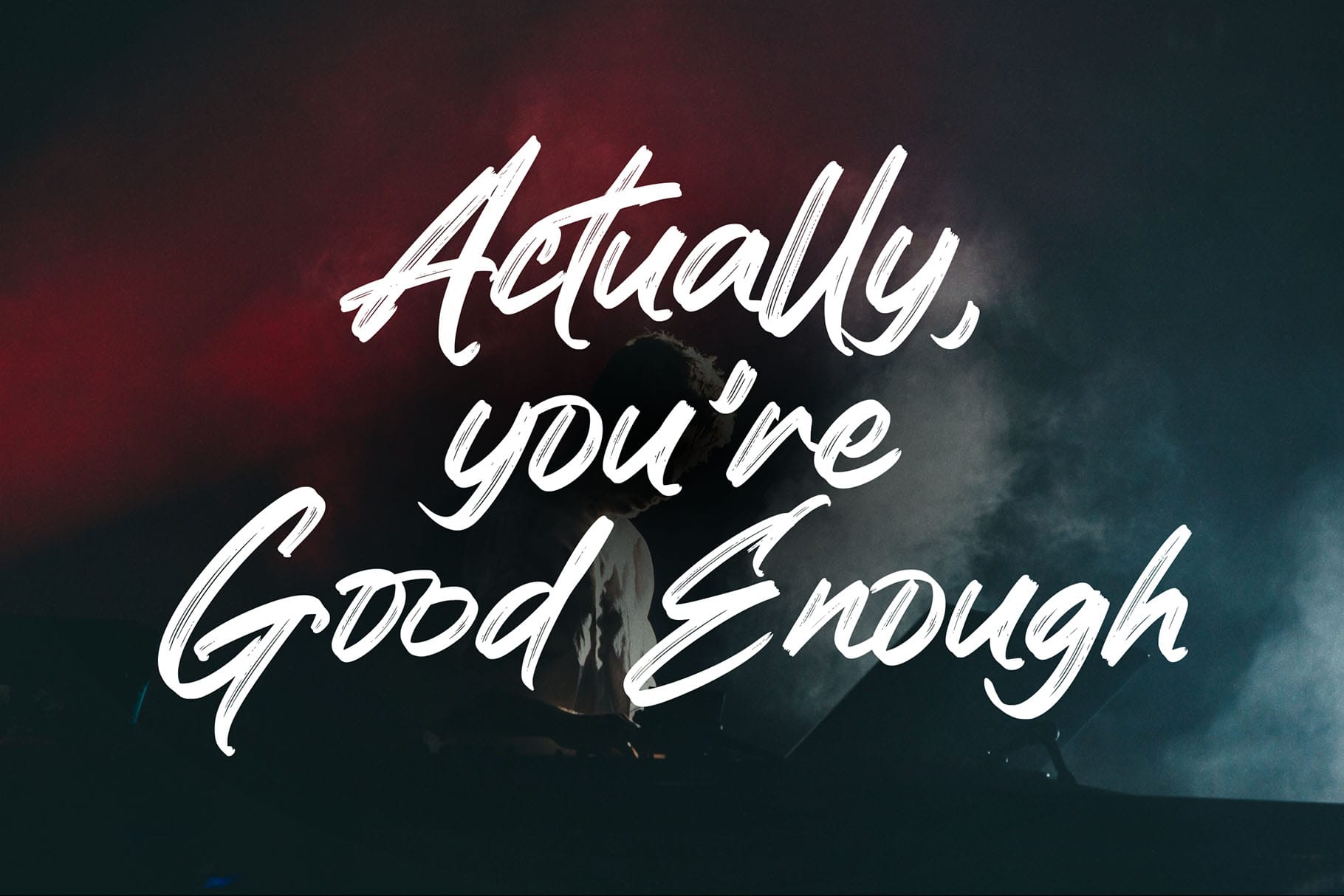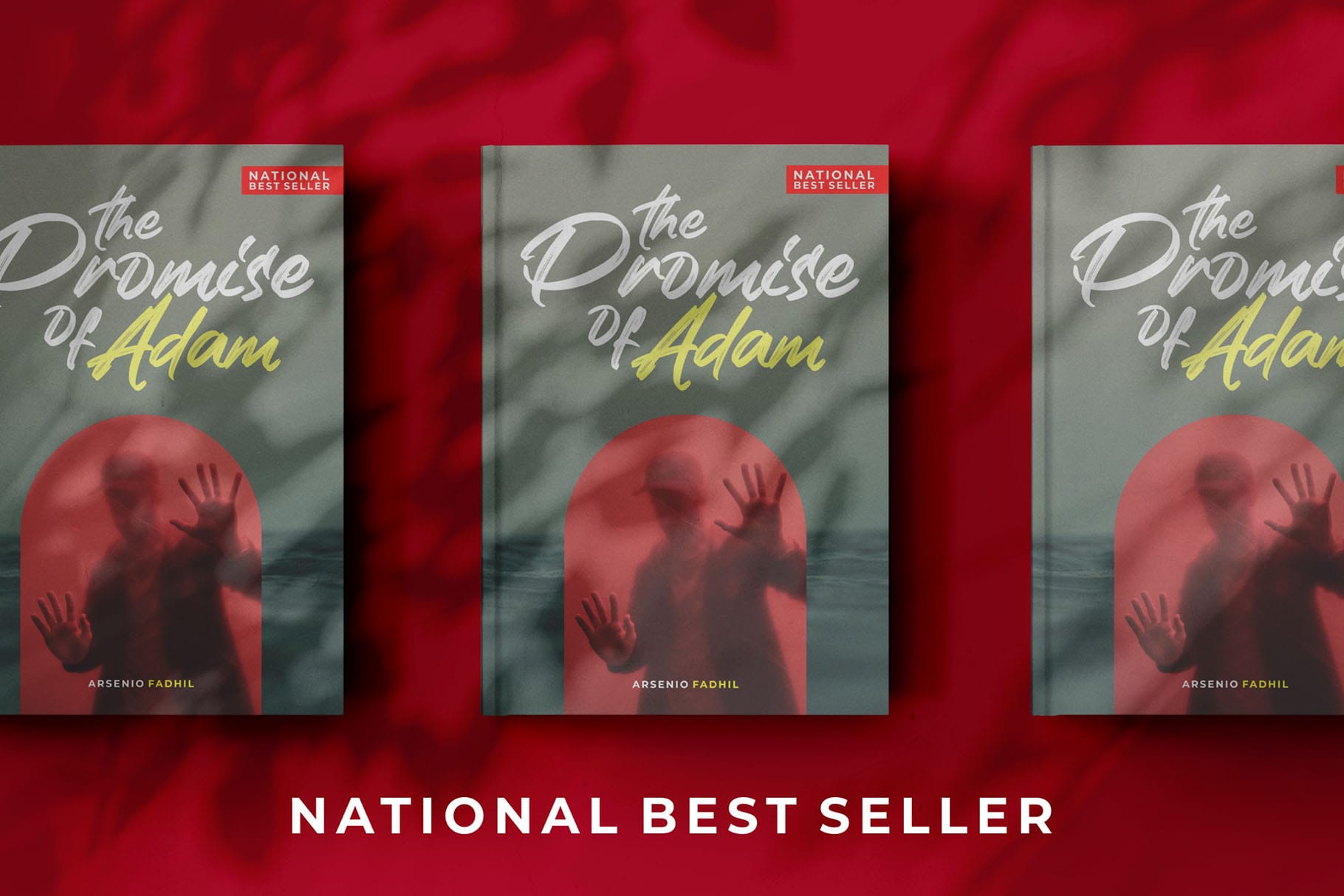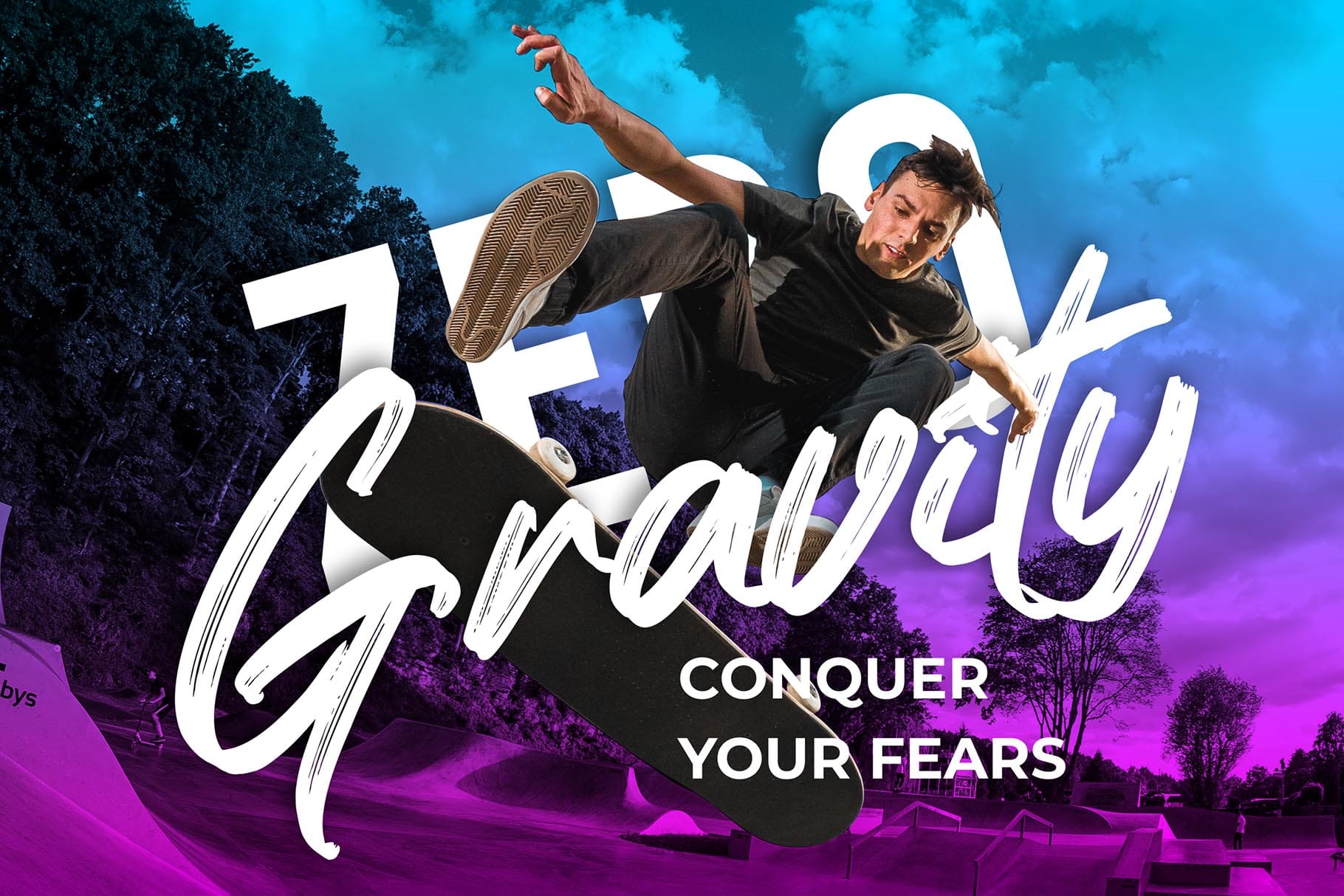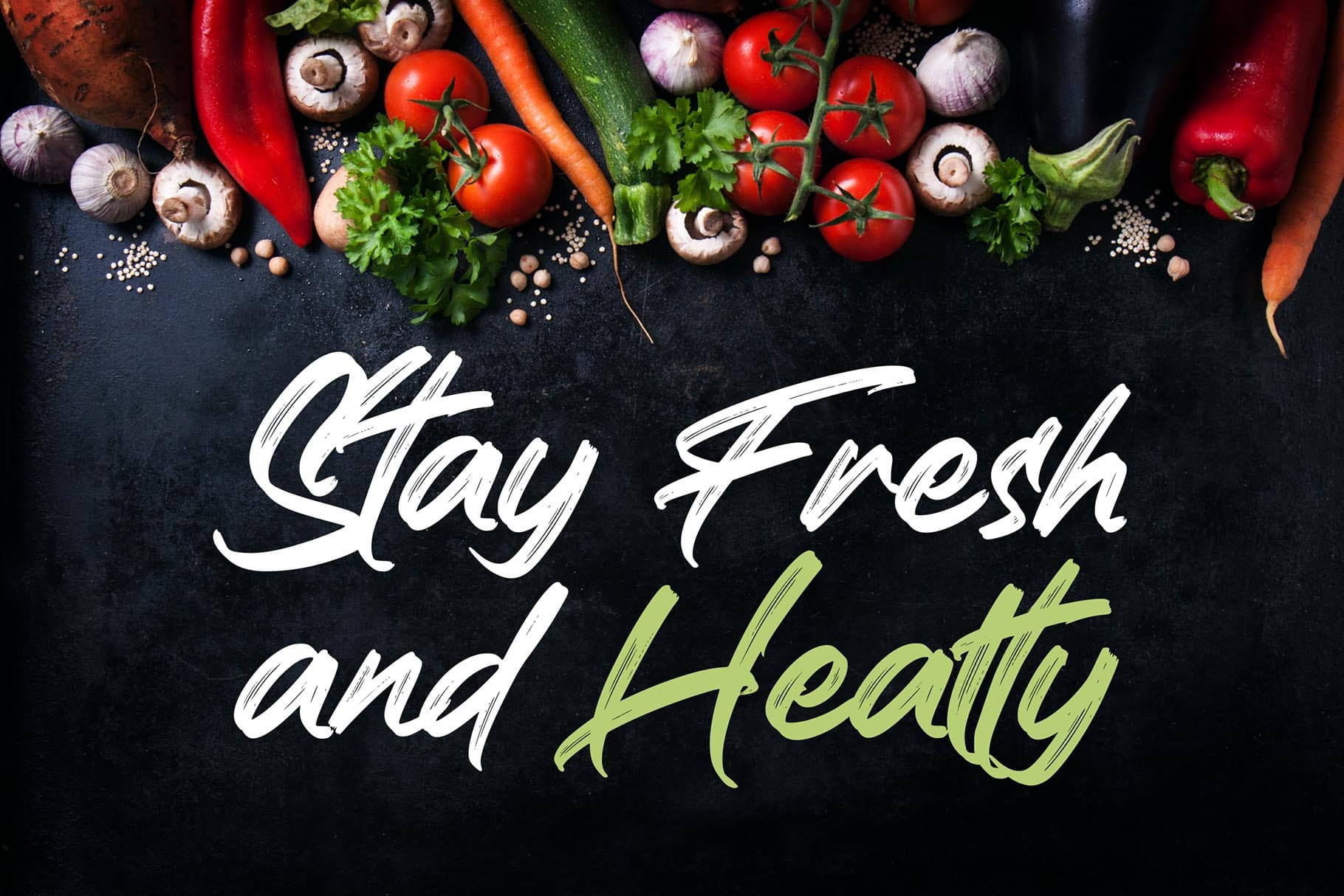
Realistic Theory! is strong hand-drawn brush font that combines attractive curves with a fresh urban edge; delivering a stylish brush font that is guaranteed to add an eye-catching appeal to your logo designs, brand imagery, handwritten quotes, product packaging, merchandise, social media post, or website font.
- Uppercase & Lowercase
- Number and Punctuation
- Ligature
- Versatile for branding, headline, or printing product